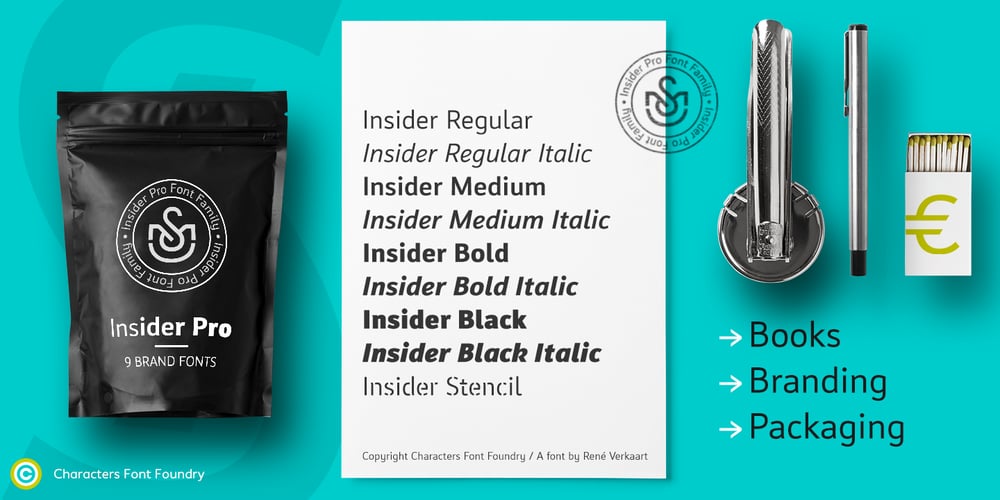
Insider
Insider font
Insider Font Family was designed by René Verkaart and published by Characters Font Foundry. Insider contains 9 styles and family package options. Insider is a warm & legible grotesque. It’s custom made for Insider Consulting in Düsseldorf, Germany. It’s highly legible in small sizes because of the basic proportions and the balanced inner forms. It’s optimized for setting longer texts, but also works very well in headlines and leads. The fonts contain loads of OpenType features to spice up your design. The matching Stencil font is very suited for creative designs. The Stencil Regular has the same dimensions as the Insider Regular, so you can mix them without hassle. The font family has real italics and not just mathematically slanted romans. The dynamic cursive shapes root in handwriting. With 9 styles (5 weights + 4 italics), the family is very versatile and can be used for designs with a complex typographical hierarchy.